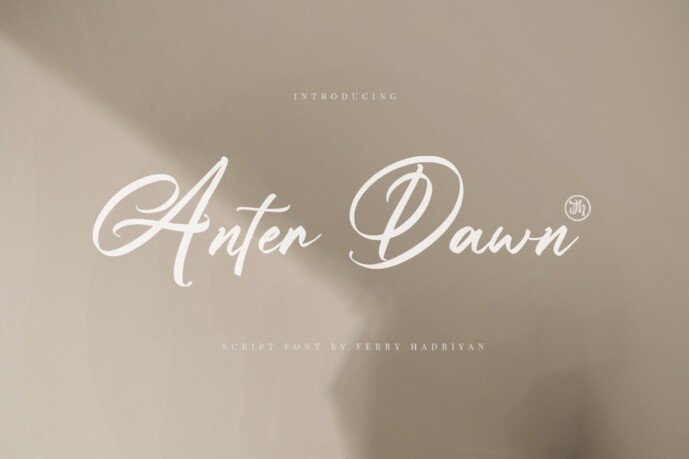
Anter Dawn Font
Anter Dawn – Script Font
Anter Dawn is a script font with a modern calligraphy style, calligraphy with a touch of elegant handwritten.